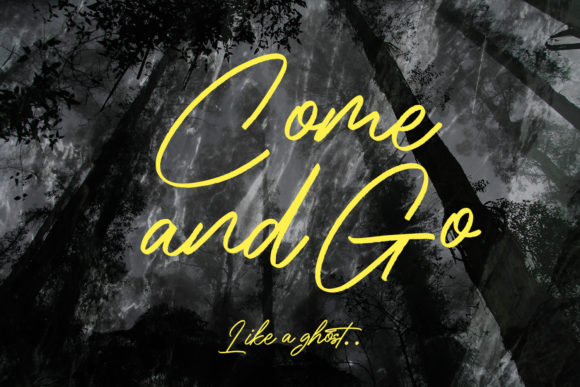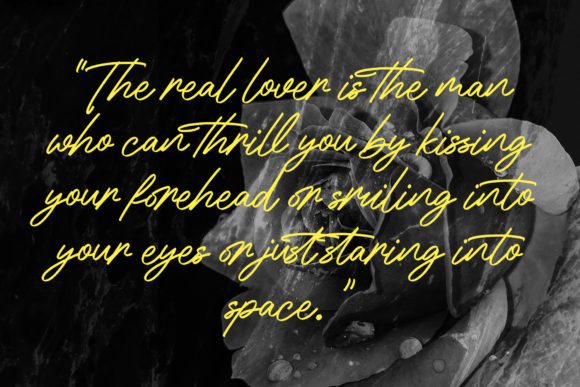
Cityskypes Font
db-ku.com - Script & Handwritten -- Cityskypes is a fancy signature script font. Add this brushed, relaxed and cursive looking font to your favorite design ideas and notice how easily they stand out.